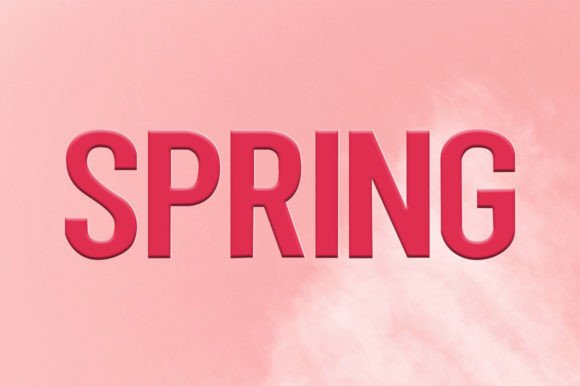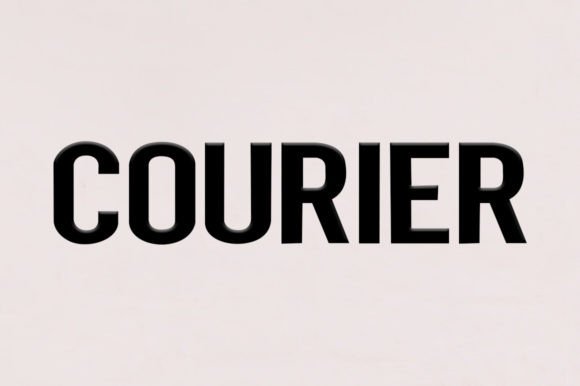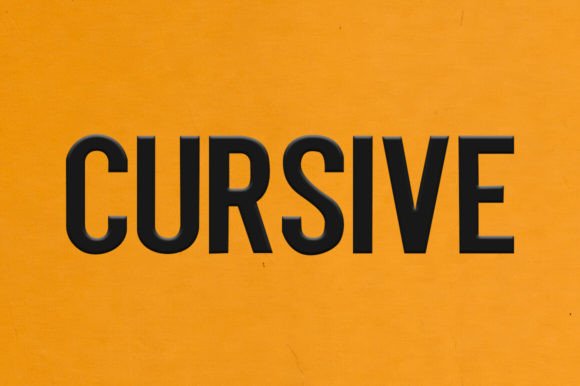
Cursive Font: Elevate Your Designs with a Bold and Assertive Sans Serif
Cursive is a bold and assertive sans serif font that can add a touch of sophistication and elegance to your creative projects. With its clean lines, precise curves, and confident demeanor, Cursive is the perfect choice for designers and crafters looking to make a statement. In this article, we’ll explore the world of Cursive fonts, their benefits, and how to incorporate them into your designs.
The Power of Cursive Fonts
Cursive fonts have been a staple in the design world for years, and their popularity shows no signs of fading. These fonts are characterized by their flowing, connected letters that create a sense of movement and fluidity. However, not all Cursive fonts are created equal. Some are elegant and refined, while others are bold and assertive. Cursive, the font we’re focusing on today, falls into the latter category.
What Makes Cursive Font Stand Out?
So, what sets Cursive apart from other fonts? Here are a few key features that make it a standout:
- Bold and Assertive: Cursive is a font that demands attention. Its bold lines and confident curves make it perfect for headlines, titles, and other design elements that need to make a statement.
- Sans Serif: Unlike traditional Cursive fonts, which are often serif, Cursive is a sans serif font. This gives it a clean and modern look that’s perfect for digital designs.
- Clean Lines: Cursive features clean lines and precise curves, making it easy to read and understand.
Benefits of Using Cursive Font
So, why should you choose Cursive for your next design project? Here are just a few benefits of using this versatile font:
- Versatility: Cursive is a versatile font that can be used in a wide range of design projects, from logos and branding to posters and social media graphics.
- Legibility: Despite its bold and assertive nature, Cursive is surprisingly easy to read. This makes it perfect for designs that need to communicate a message quickly and effectively.
- Uniqueness: Cursive is a unique font that can help your designs stand out from the crowd. Its bold lines and confident curves make it a great choice for designers looking to create something truly memorable.
How to Use Cursive Font in Your Designs
Now that we’ve covered the benefits of Cursive, let’s talk about how to incorporate it into your designs. Here are a few tips to get you started:
- Pair it with Other Fonts: Cursive is a bold font that can hold its own, but it can also be paired with other fonts to create a unique and interesting design. Try pairing it with a serif font for a classic look or a script font for something more elegant.
- Use it for Headlines: Cursive is perfect for headlines and titles. Its bold lines and confident curves make it easy to read and understand, even at small sizes.
- Experiment with Colors: Cursive looks great in a wide range of colors, from bold and bright to subtle and muted. Experiment with different colors to find the perfect look for your design.
Cursive Font in Crafting and DIY Projects
Cursive isn’t just for digital designs. It can also be used in crafting and DIY projects to add a touch of elegance and sophistication. Here are a few ideas to get you started:
- Hand Lettering: Cursive can be used as a guide for hand lettering projects. Simply print out the font and use it as a template to create beautiful, hand-written letters.
- Sign Making: Cursive is perfect for sign making projects. Its bold lines and confident curves make it easy to read and understand, even from a distance.
- Paper Crafting: Cursive can be used in paper crafting projects, such as card making and scrapbooking. Its elegant lines and curves add a touch of sophistication to any project.
Cursive is a bold and assertive sans serif font that’s perfect for designers and crafters looking to make a statement. With its clean lines, precise curves, and confident demeanor, Cursive is the perfect choice for a wide range of design projects. Whether you’re working on a digital design or a crafting project, Cursive is sure to elevate your work and add a touch of elegance and sophistication.